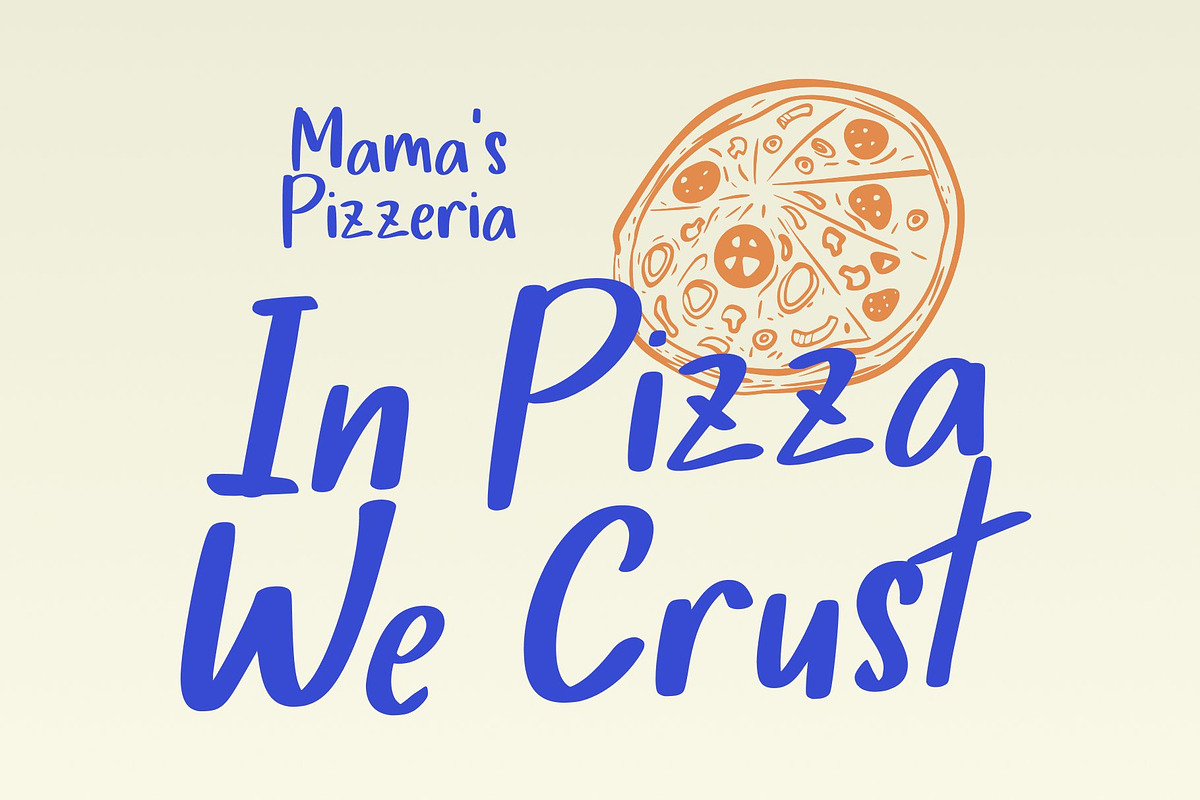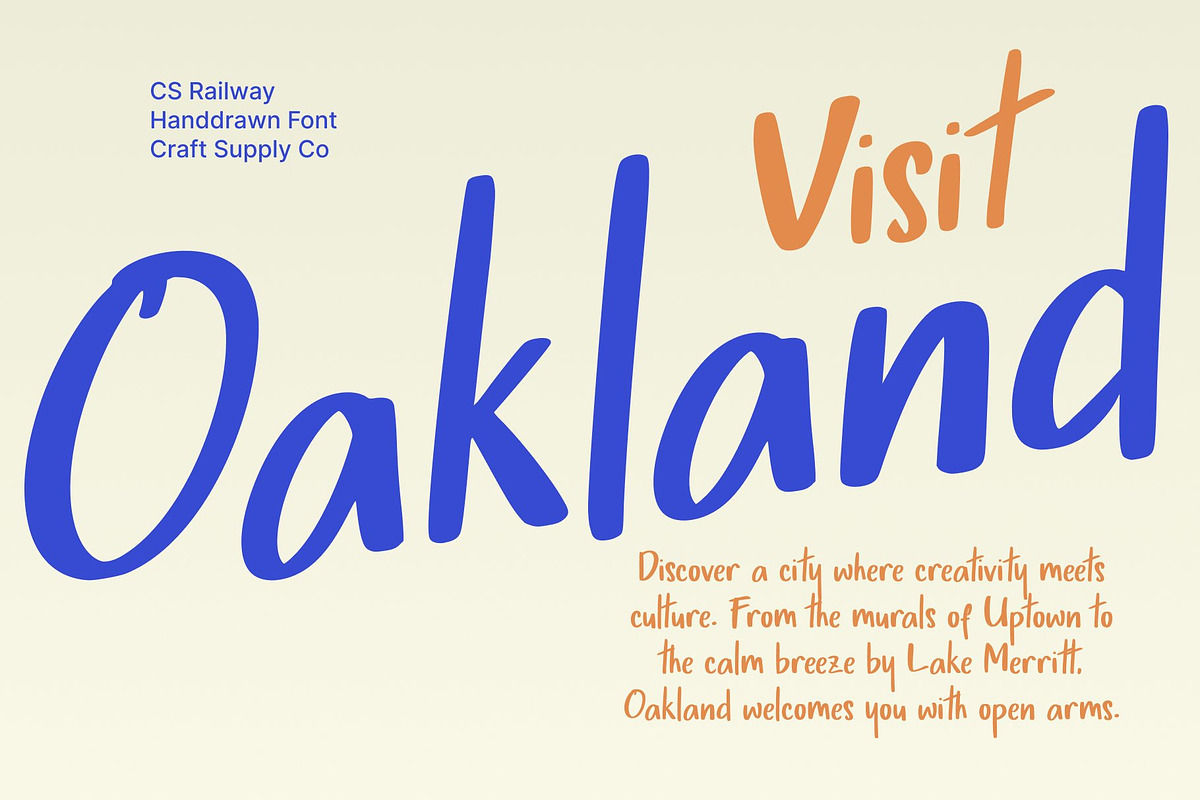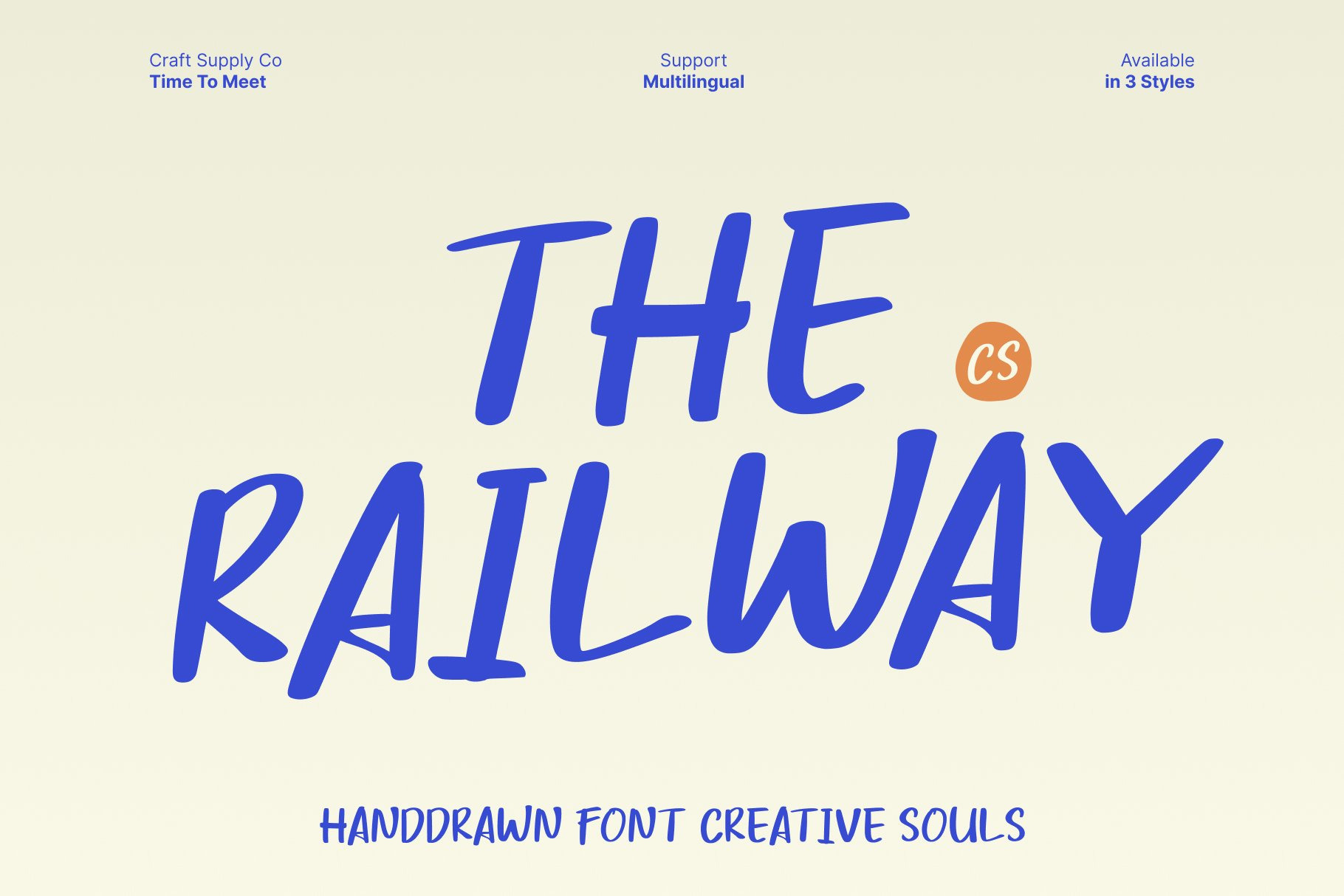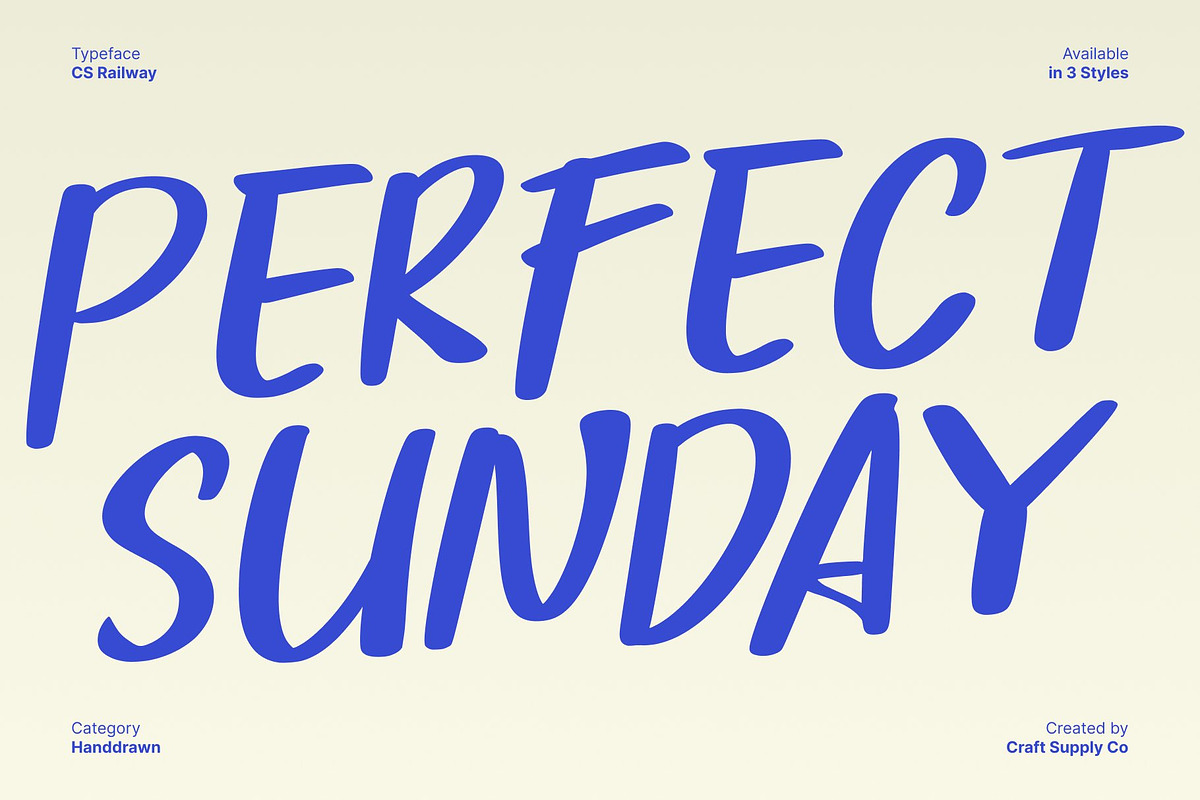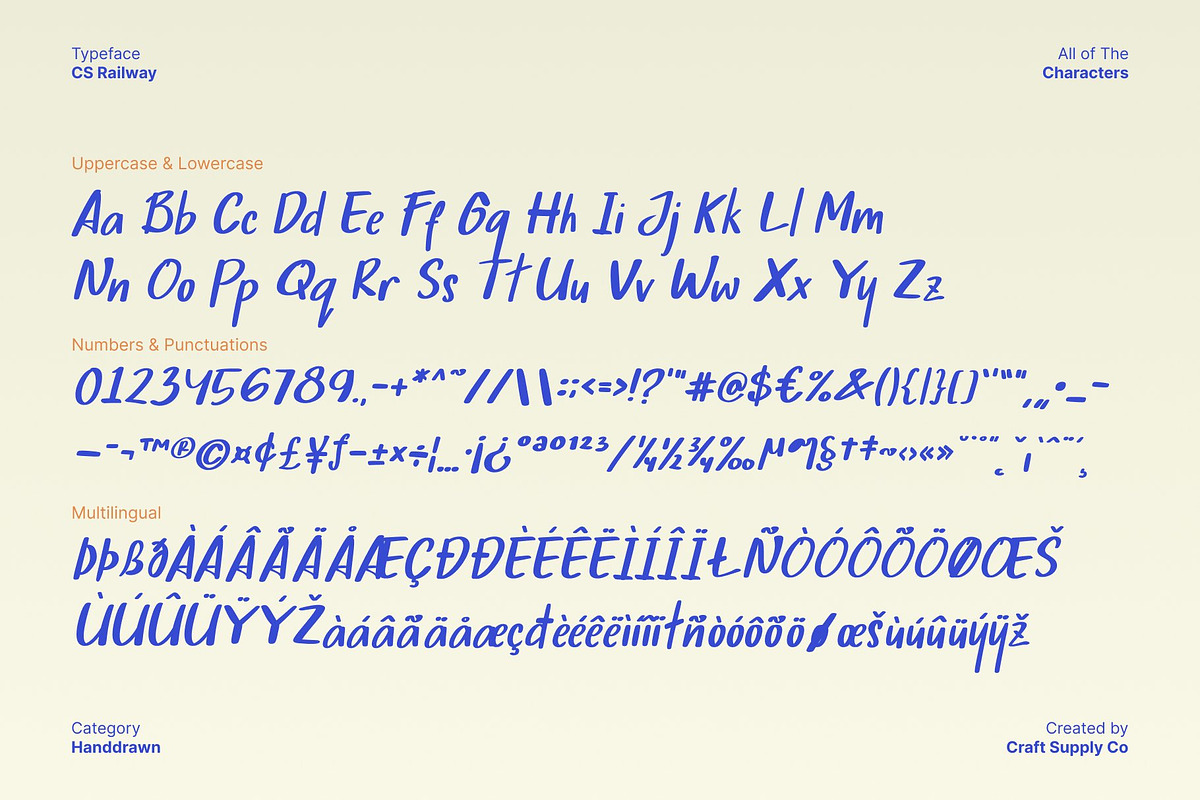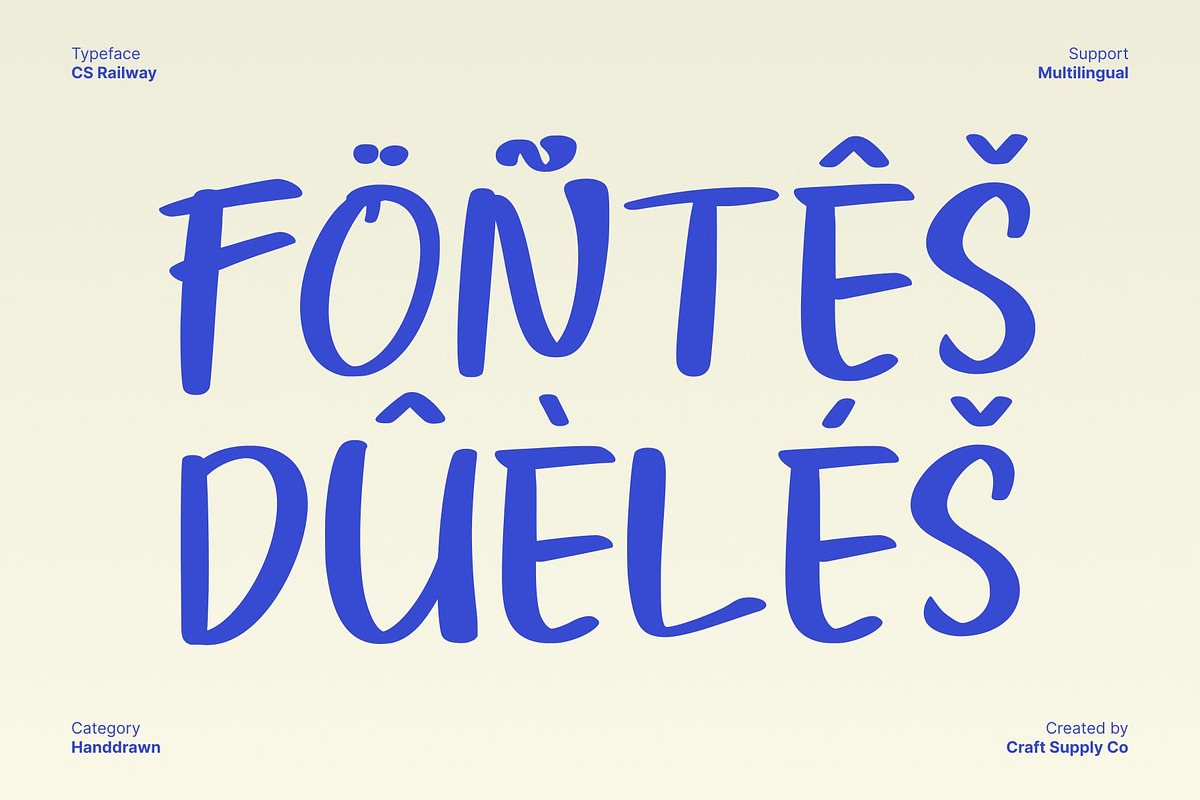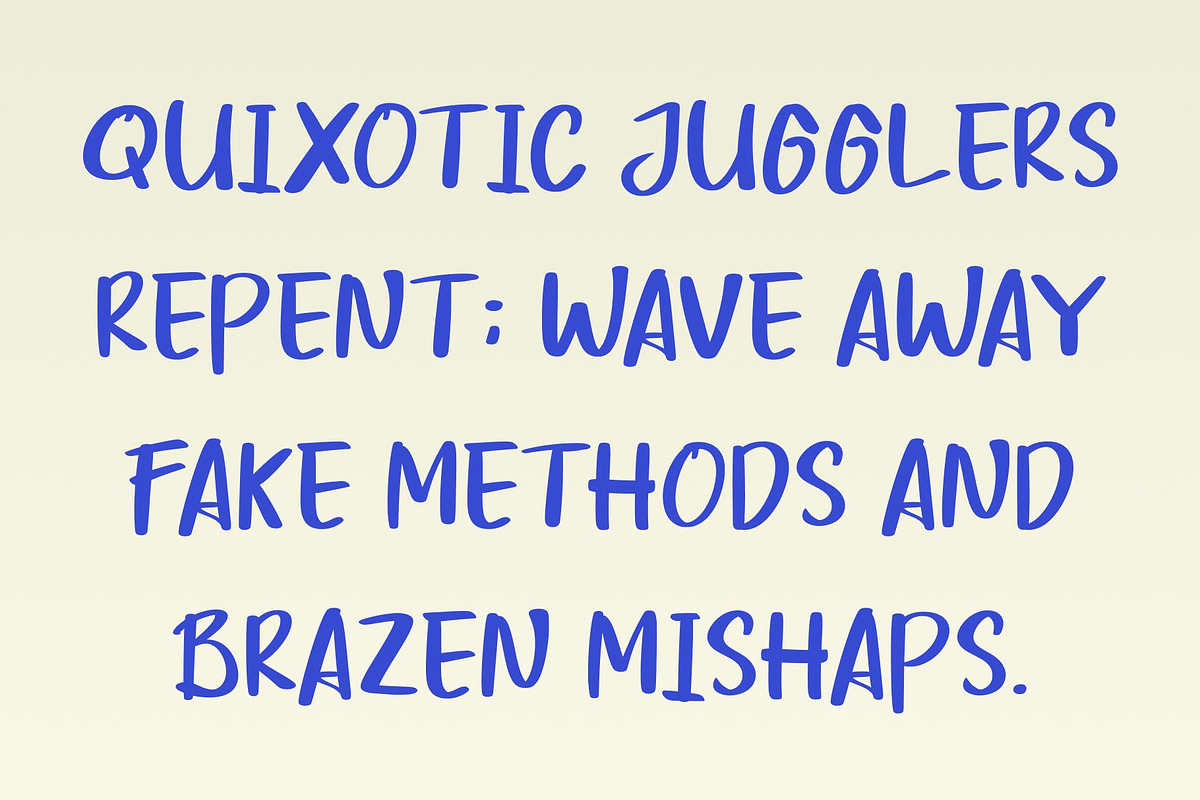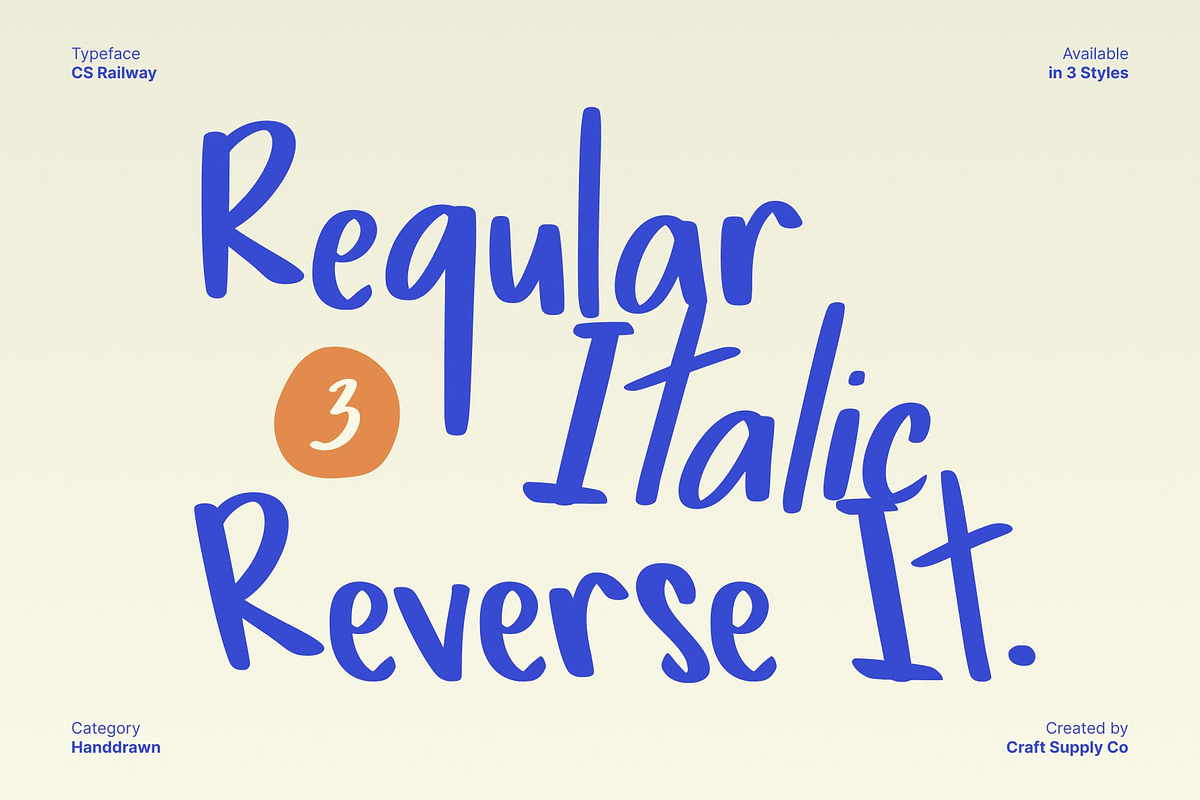
CS Railway – Marker Font
CS Railway – Natural Marker Sans Serif with Expressive Handwritten Energy
Handwritten Marker Style with Authentic Personality This is a marker-style sans serif font that captures the warmth and spontaneity of natural handwriting. Its strokes flow with ease, mimicking the look of hand-drawn letters created with a soft, expressive marker. This organic feel adds character and emotional depth, making every word feel more personal, approachable, and full of life.
Polished Sans Serif Structure with Handmade Texture Blending clean sans serif construction with handcrafted texture, this font offers the perfect harmony between neatness and creativity. Its smooth, rounded edges and balanced forms maintain readability, while the handwritten touch introduces subtle variations that make each letter feel alive.
Expressive Appearance for Editorials, Branding, and Digital Use The unique marker texture allows this font to stand out beautifully in modern editorial layouts, stylish branding systems, and contemporary digital designs. Its expressive shapes add warmth to titles, subheadings, quotes, and social media graphics, making it a versatile tool for projects that need authenticity and visual personality.
Perfect for Creative and Character-Rich Designs This font supports designers looking to inject human touch into their work. Its handwritten style, paired with its clean sans serif foundation, gives it the flexibility to move between playful, professional, and artistic settings. Ideal for creative design, packaging, posters, and lifestyle visuals.